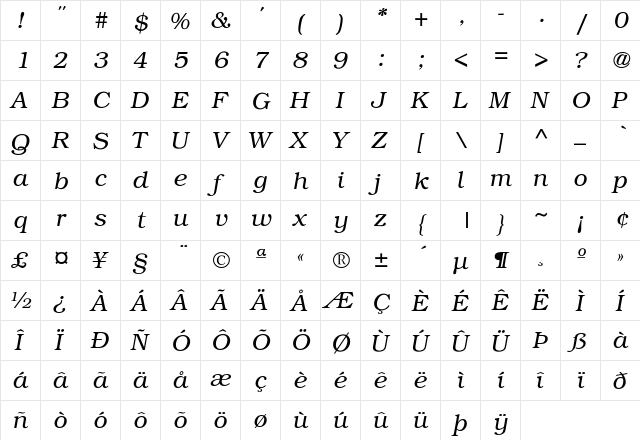
EdgeWater Light Italic Regular
Design Context for EdgeWater Light Italic Typeface
EdgeWater Light Italic offers clean, dependable letterforms without strong stylistic allegiance, making it a practical choice for designers who need flexibility. The dynamic lean of this cut emphasises speed and emphasis in any layout. Its slender proportions lend an understated elegance to any composition.
Pro Tip: Try EdgeWater Light Italic for annotation and caption copy alongside an upright companion — the contrast in angle creates a dynamic but ordered typographic system.